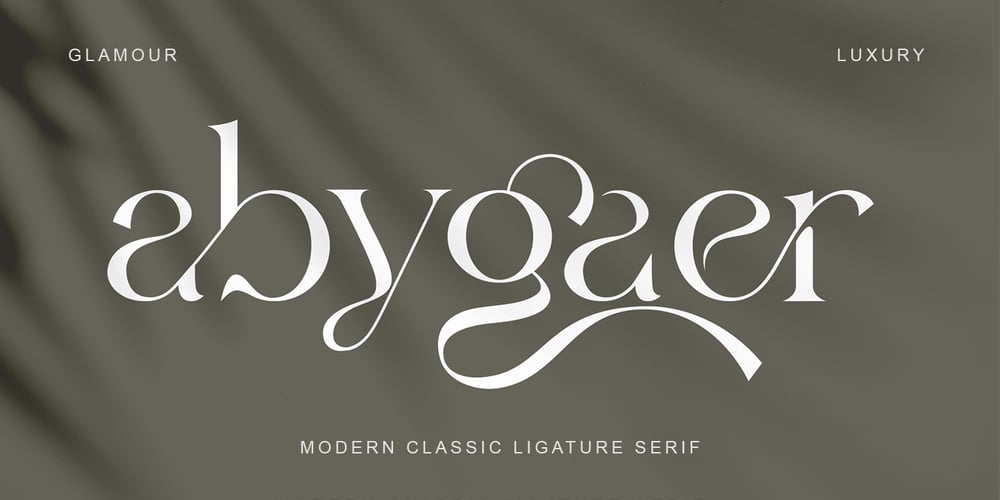
Abygaer Font Family was designed by Saiful Anwar and published by Sealoung. Abygaer contains 1 styles and family package options. Abygaer – a stylish OpenType rich serif with letters that seem to dance and twist harmoniously together – to form unique & elegant typography designs.A large selection of interwoven Opentype ligatures and alternates, means ample selection and variety in your finished look.To access these OpenType features, you will need Opentype capable software such as : Word, Textedit, Photoshop, Sketch, Pages, Keynote, Numbers, iBooks Author, QuarkXPress, Indesign and Illustrator.A wide range of useful glyphs are included – see preview image of all glyphs.Abygaer is also included full set of:-uppercase and lowercase letters -multilingual symbols -numerals -punctuation -stylish alternates-ligatureWish you enjoy our font and if you have a question, don’t hesitate to drop message & I’m happy to help 🙂